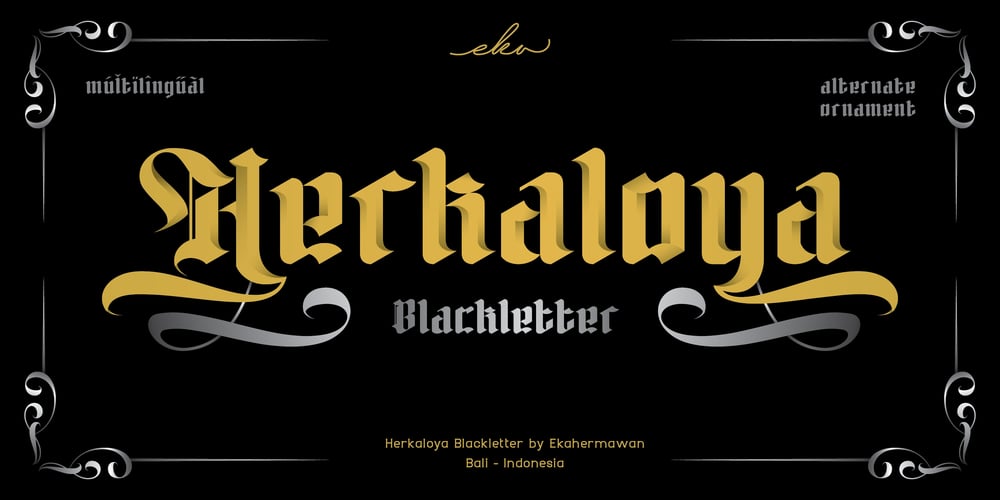
Herkaloya Font Family was designed by Putu Eka Hermawan and published by Ekahermawan. Herkaloya contains 2 styles and family package options. Herkaloya are Blackletter font with a full set of capital and lowercase letters, alternate, ligature, multilingual support, currency figures, numerals and punctuation.Herkaloya is perfect for Tattoo Logo, Barbershop Logo, Clothing, Music Events, Branding, and many more projects with Gothic theme. Herkaloya also provided Herkaloya Ornament to make your projects more sweet and stunning.If you need support or more information about this itemplease kindly contact me :ekahermawanputu@gmail.comThank you so muchI really hope you enjoy using it!